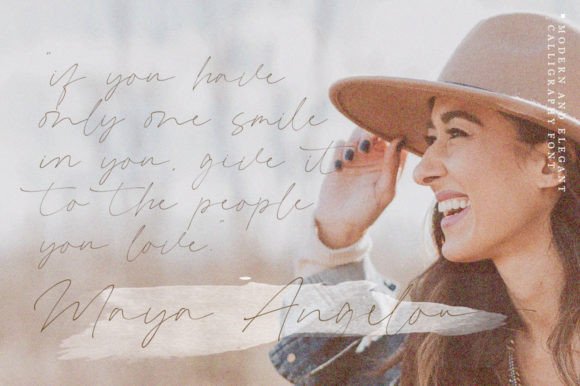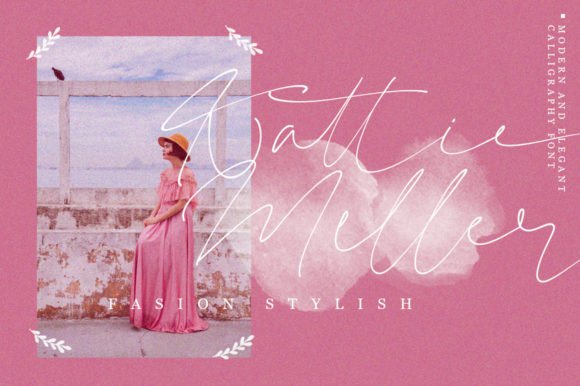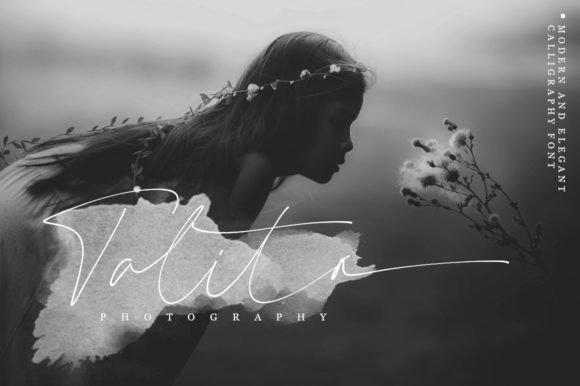
Introduction to Selomita Font
Selomita is a magical handwritten font carefully created with a touch of elegance.
This is a beautiful combination of timeless elegance and authentic calligraphy It features an incredibly classic style, while still keeping a friendly feel.
Key Features of Selomita Font
Why Choose Selomita Font?
Selomita Font offers exceptional quality and versatility, making it a valuable addition to your design toolkit. Whether you’re creating for personal projects or commercial use, Selomita Font delivers professional results.